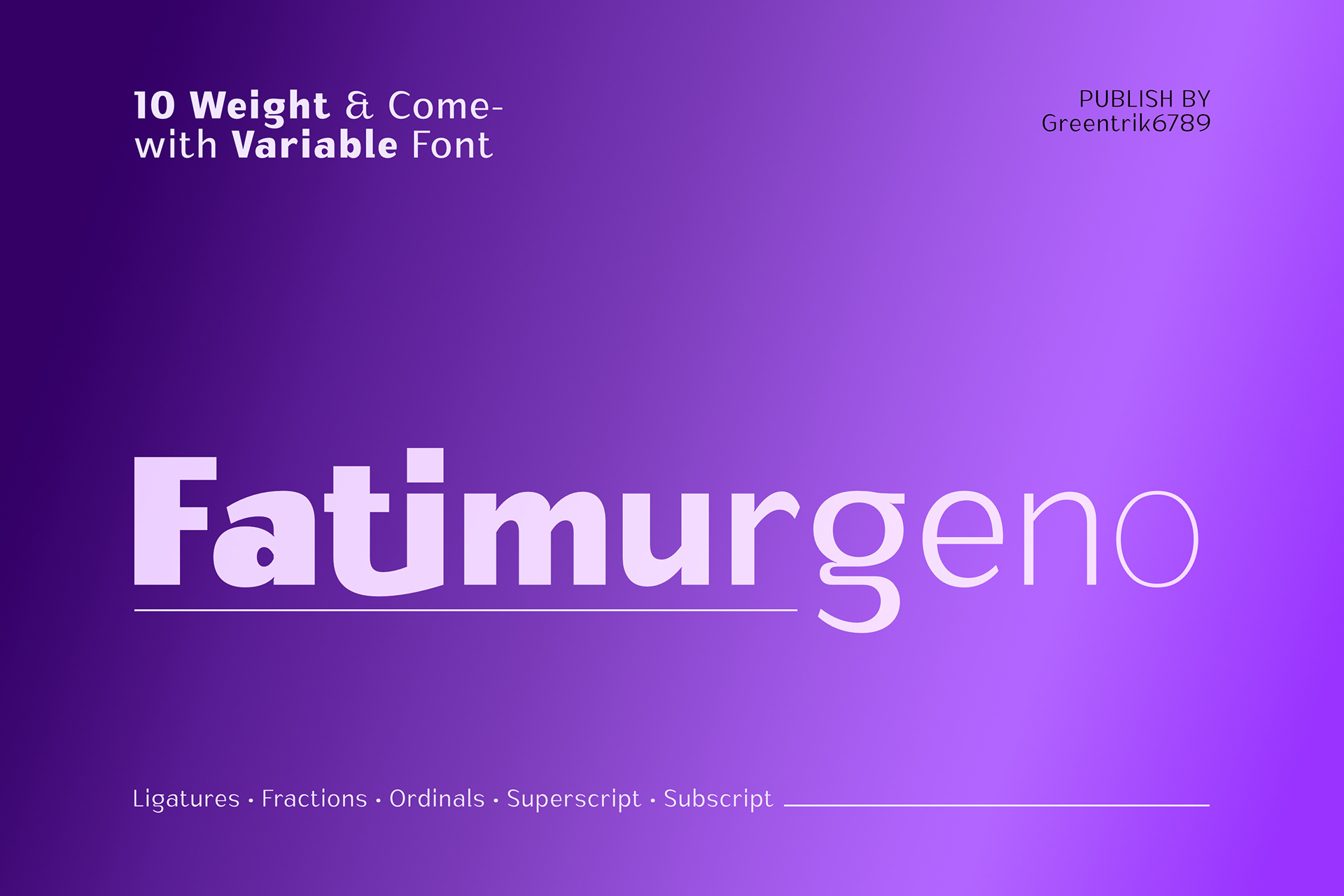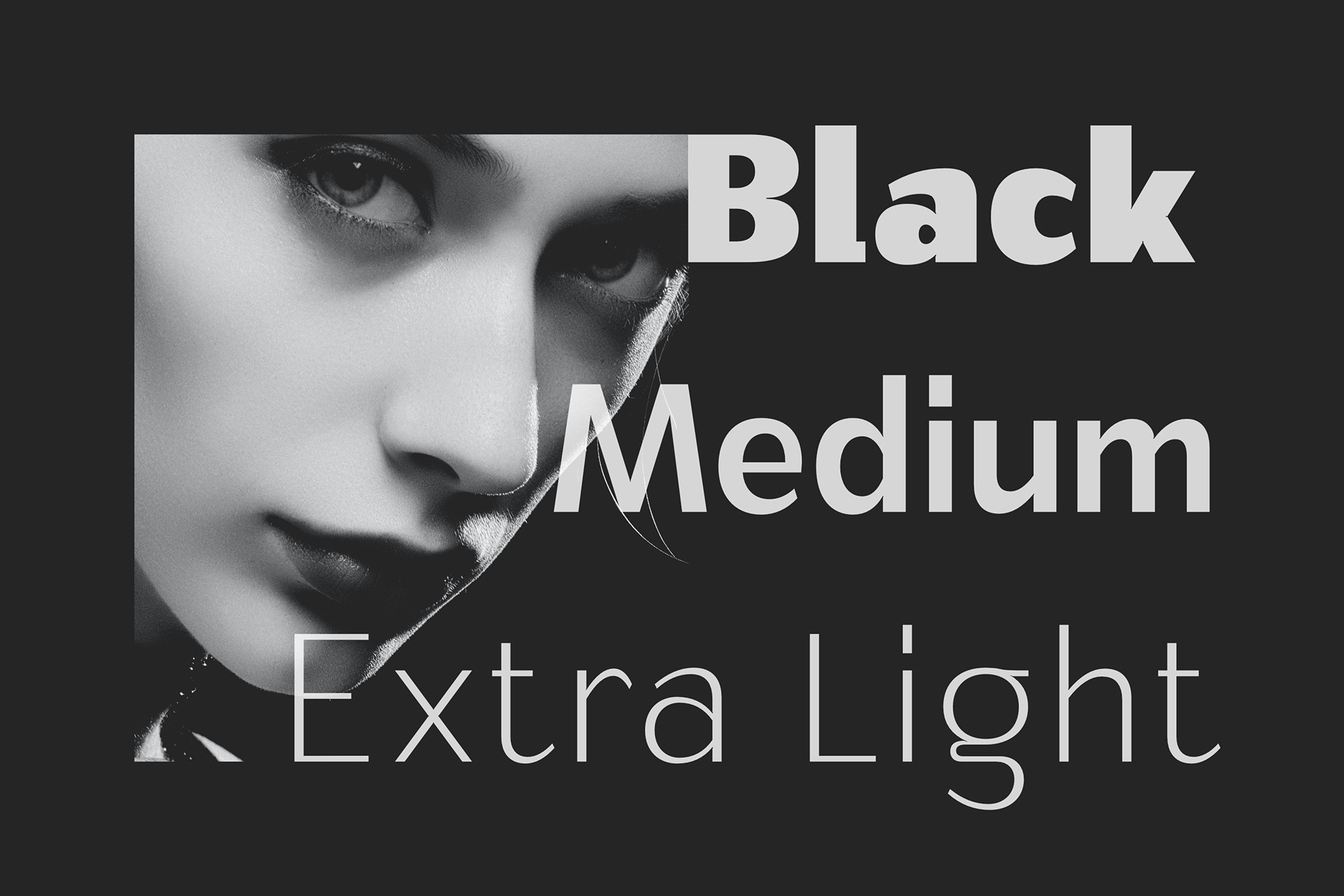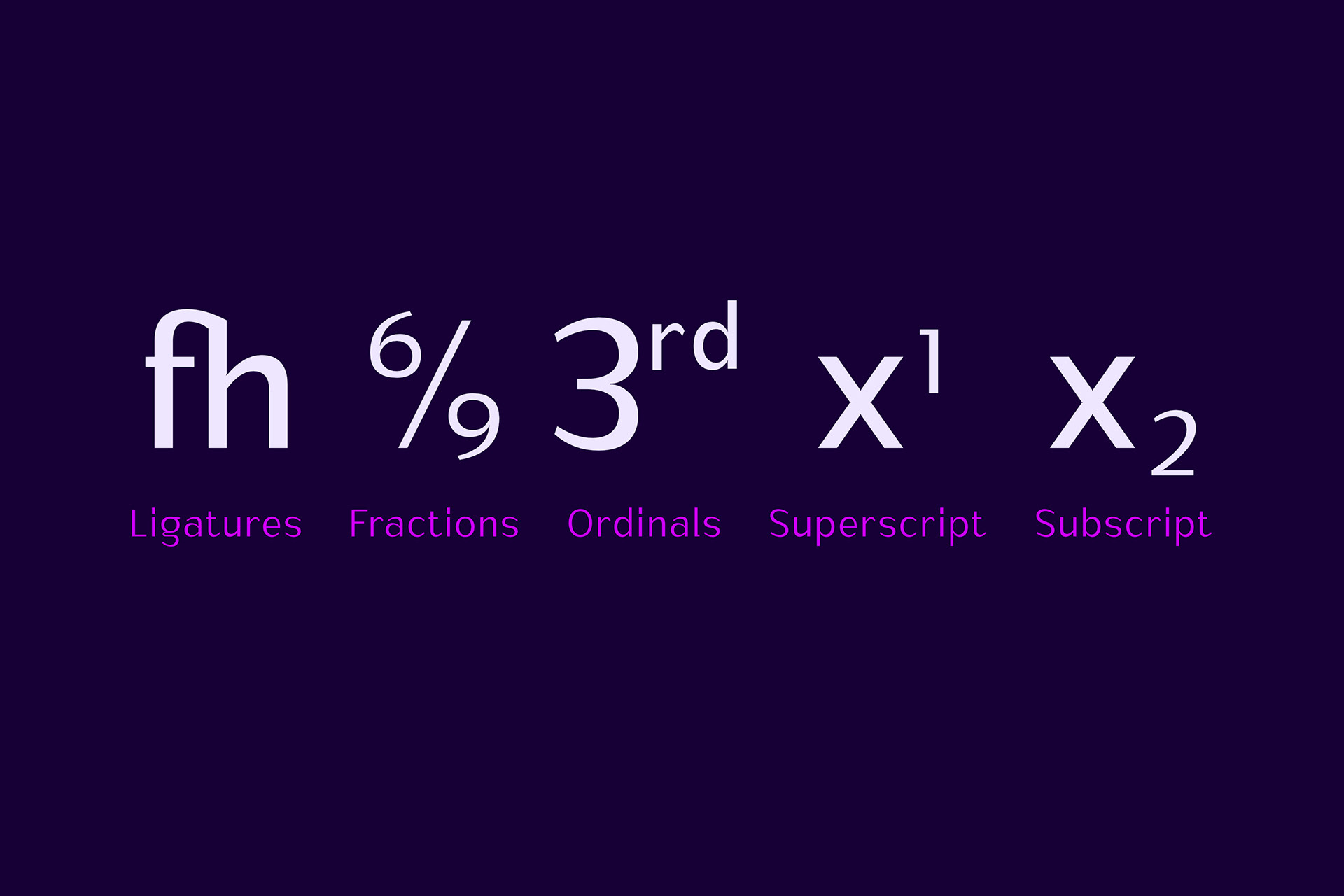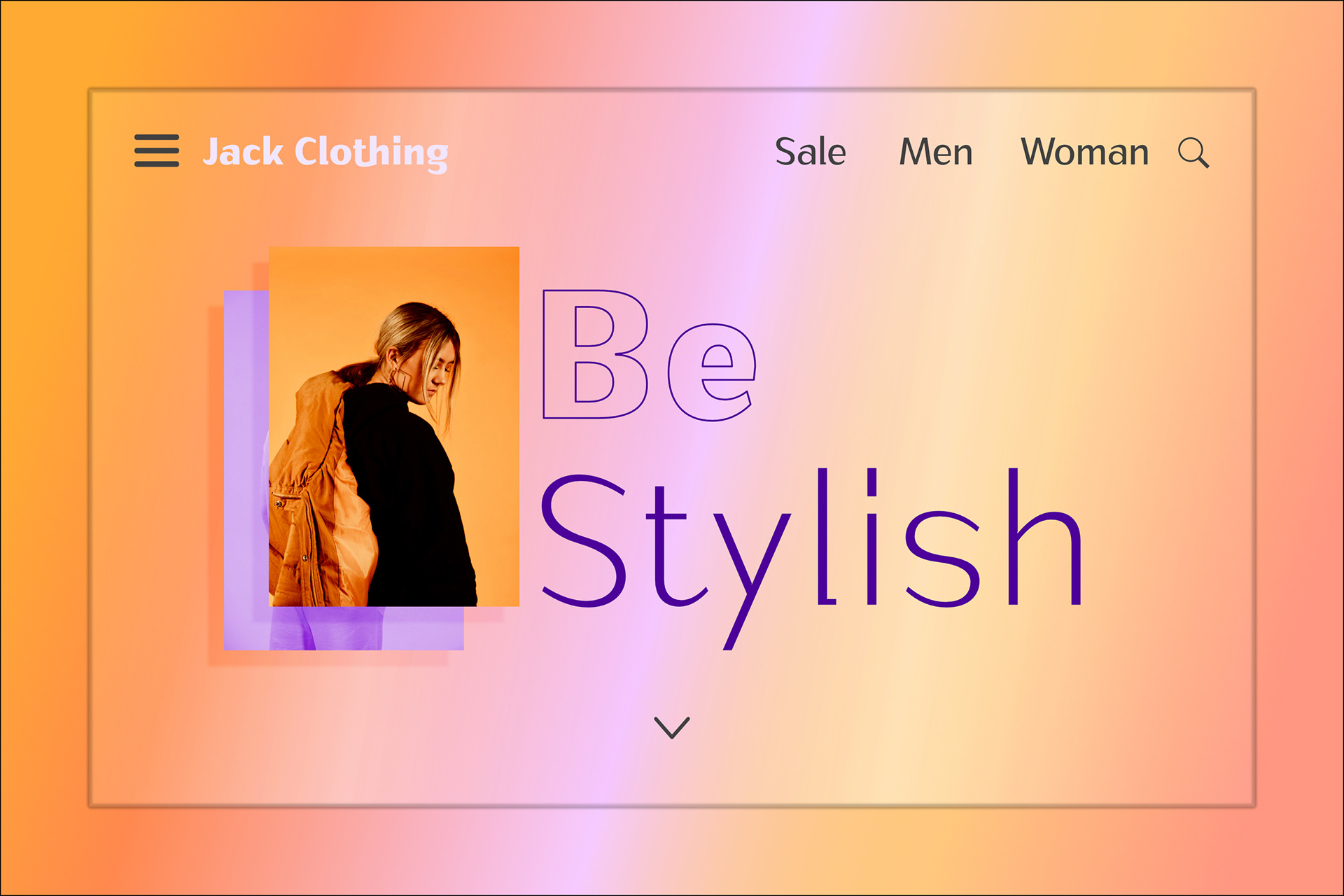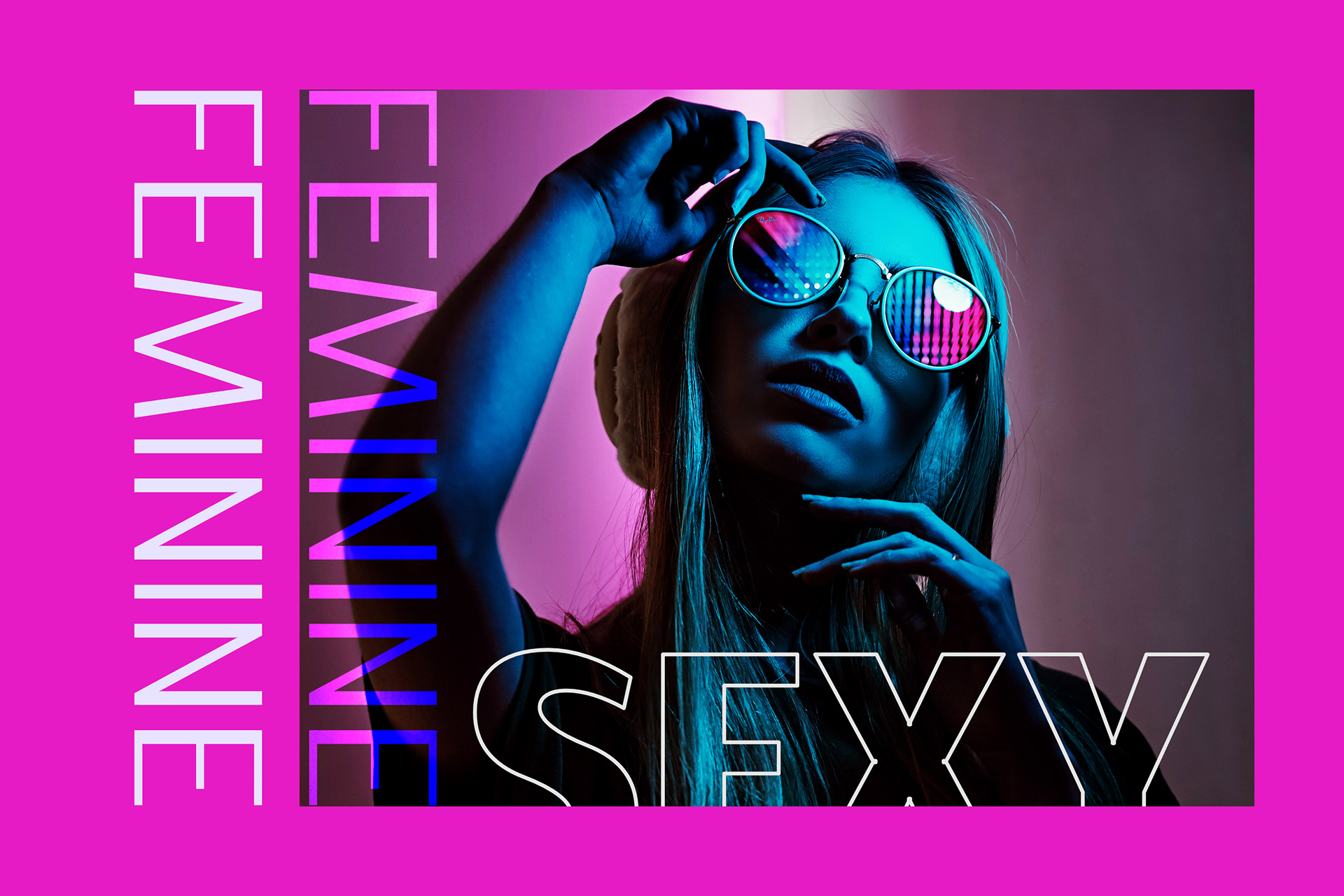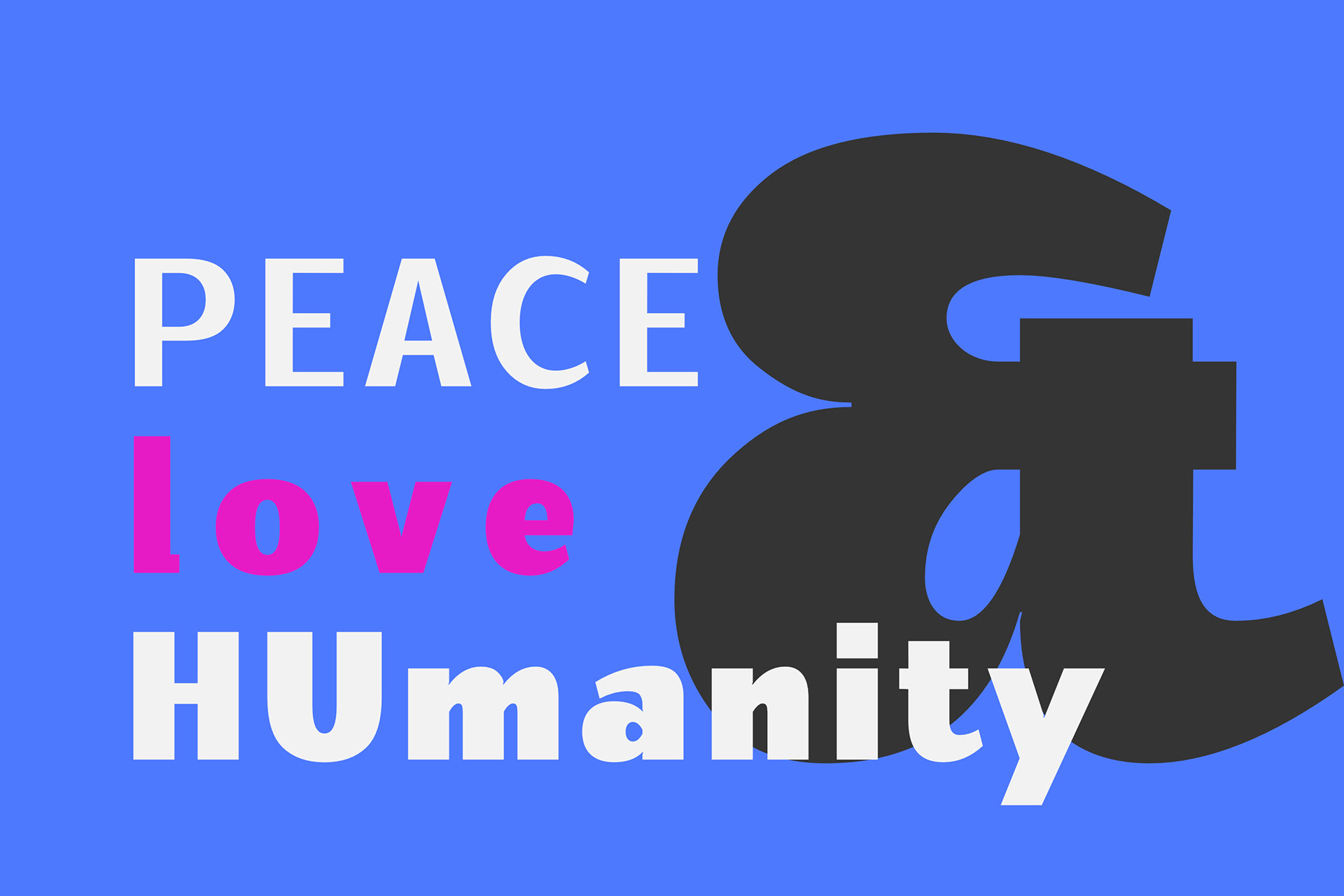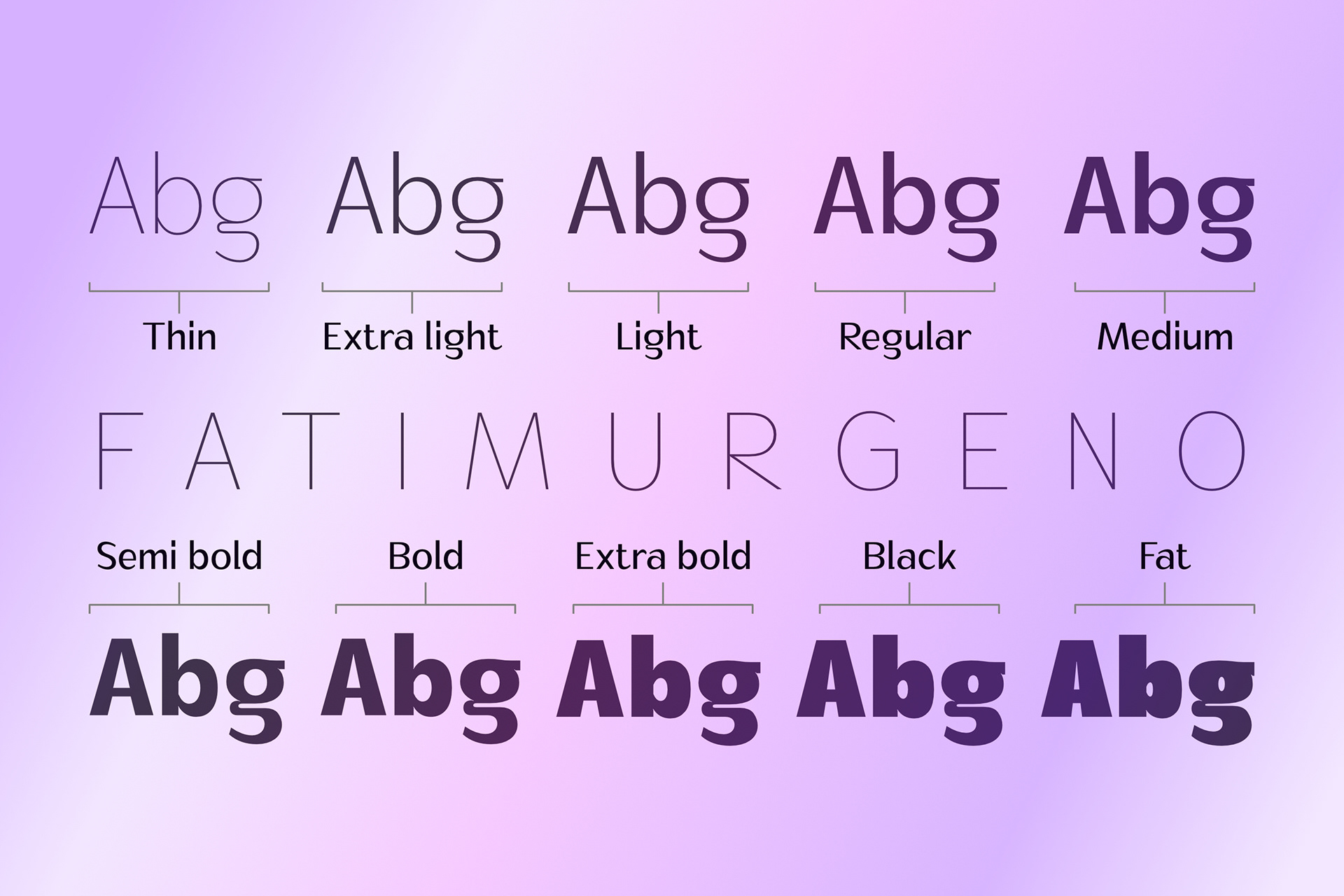
Fatimurgeno comes in 10 weight, and also comes with variable font. You can adjust the size of the weight which is suitable for the needs you want.
Fatimurgeno is a various sized, clean and modern looking sans serif font. Whether you’re using it for crafting, digital designing, presentations or greeting cards making, it’s perfect! The Thick version will be perfect for a clean and strong look, and the slim version will be perfect for a soft and seductive look.